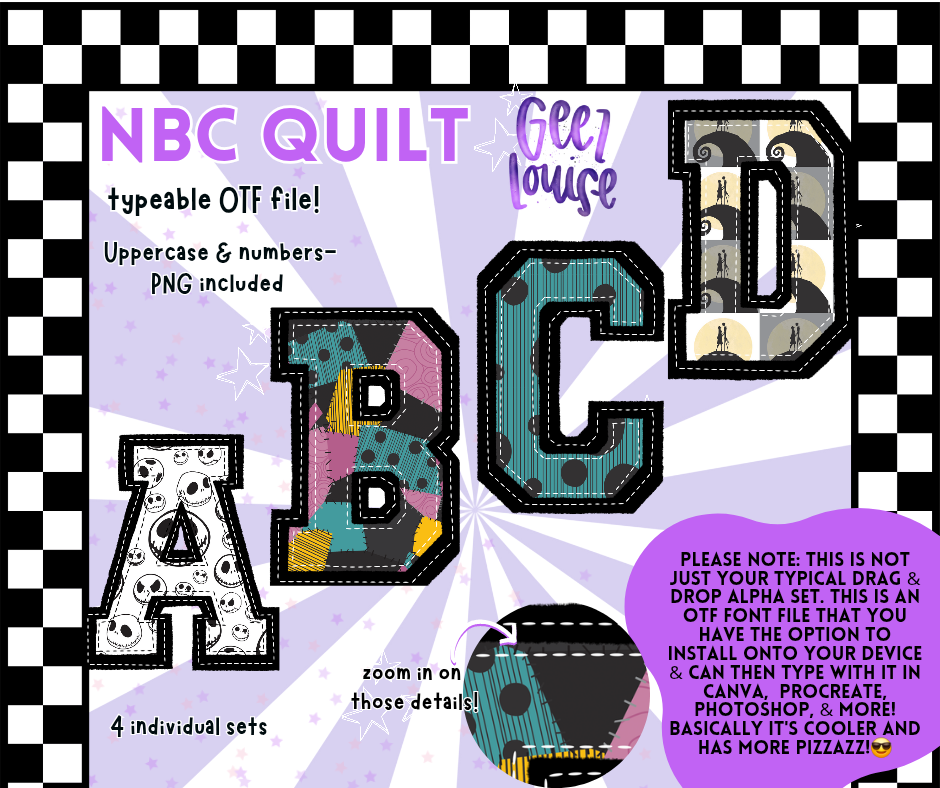
NBC Quilt – Nightmare-Inspired Patchwork OTF Alpha + PNGs (4 Font Sets!)
Sewn with spooky vibes and stitched in sass 🖤🧵
NBC Quilt is a Halloween dream with four unique typeable OTF fonts inspired by your favorite nightmare world.
Perfect for eerie edits, frightful flyers, or a creepy-cute aesthetic that never goes out of style. It’s giving “spooky season main character” energy. 💀